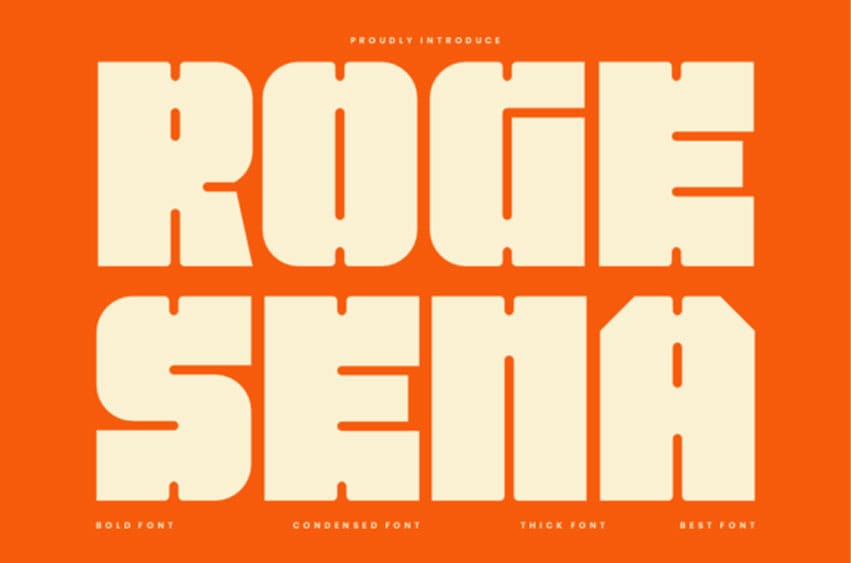
Roge Sena Font is a cool, bold display font that exudes strength and modern confidence. Featuring thick strokes, sharp edges, and commanding letterforms, it captures a powerful and contemporary aesthetic.
Ideal for headlines, logos, posters, and branding, it adds a striking and dynamic presence to any design. With its bold structure and impactful style, this font delivers both attention and clarity.